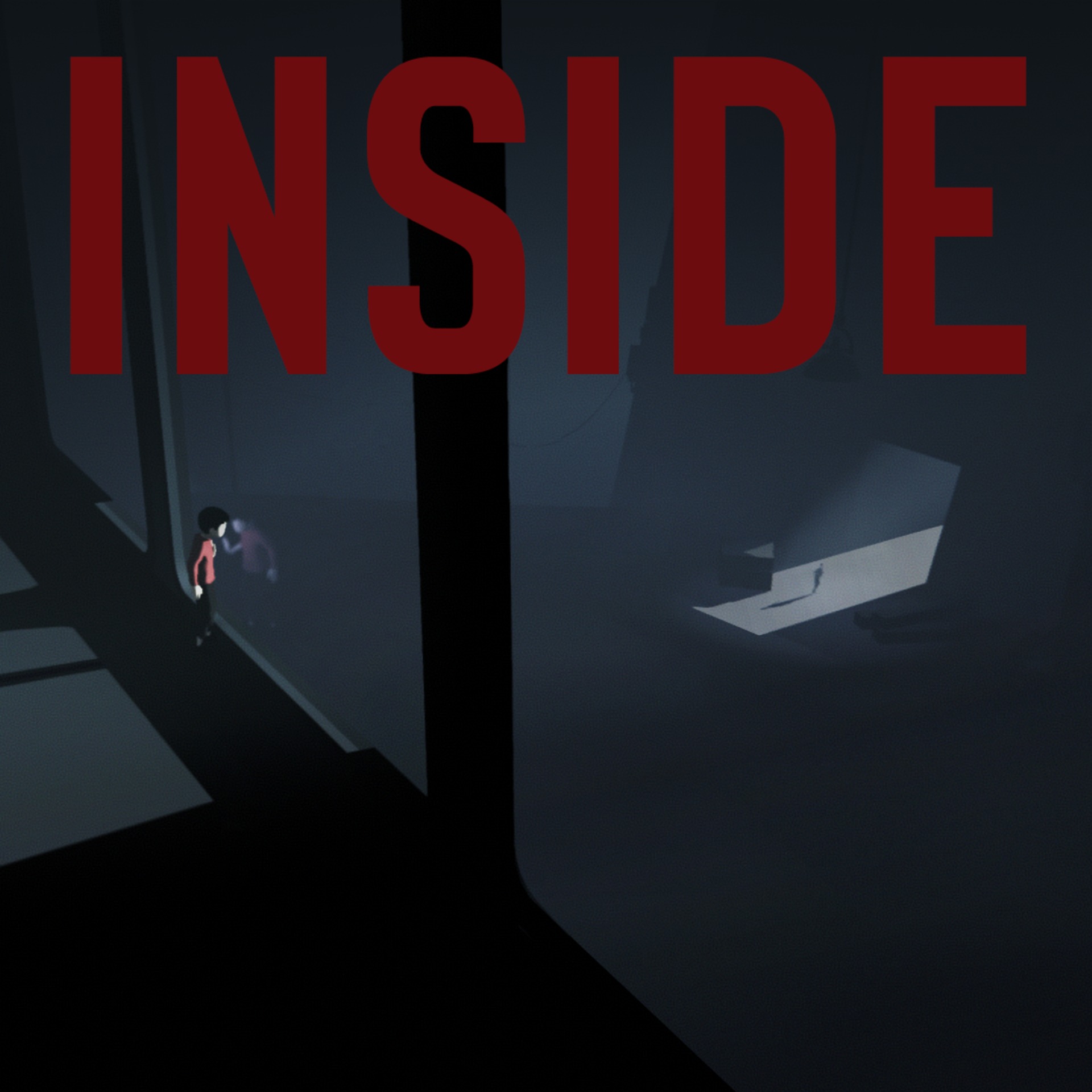
Inside (video game) Font
Action & AdventureInside is a puzzle-platformer video game developed and published by Playdead. It was released in 2016 for Microsoft Windows, Xbox One, and PlayStation 4. The game follows a young boy who is on a journey through a mysterious and surreal world and encounter strange and often ominous creatures and objects.
The font used for the Inside game logo is proabably CA Geheimagent Bold designed by german designer Stefan Claudius. There are two variants of the grotesque sans serif typeface, Regular & Bold with matching italics.